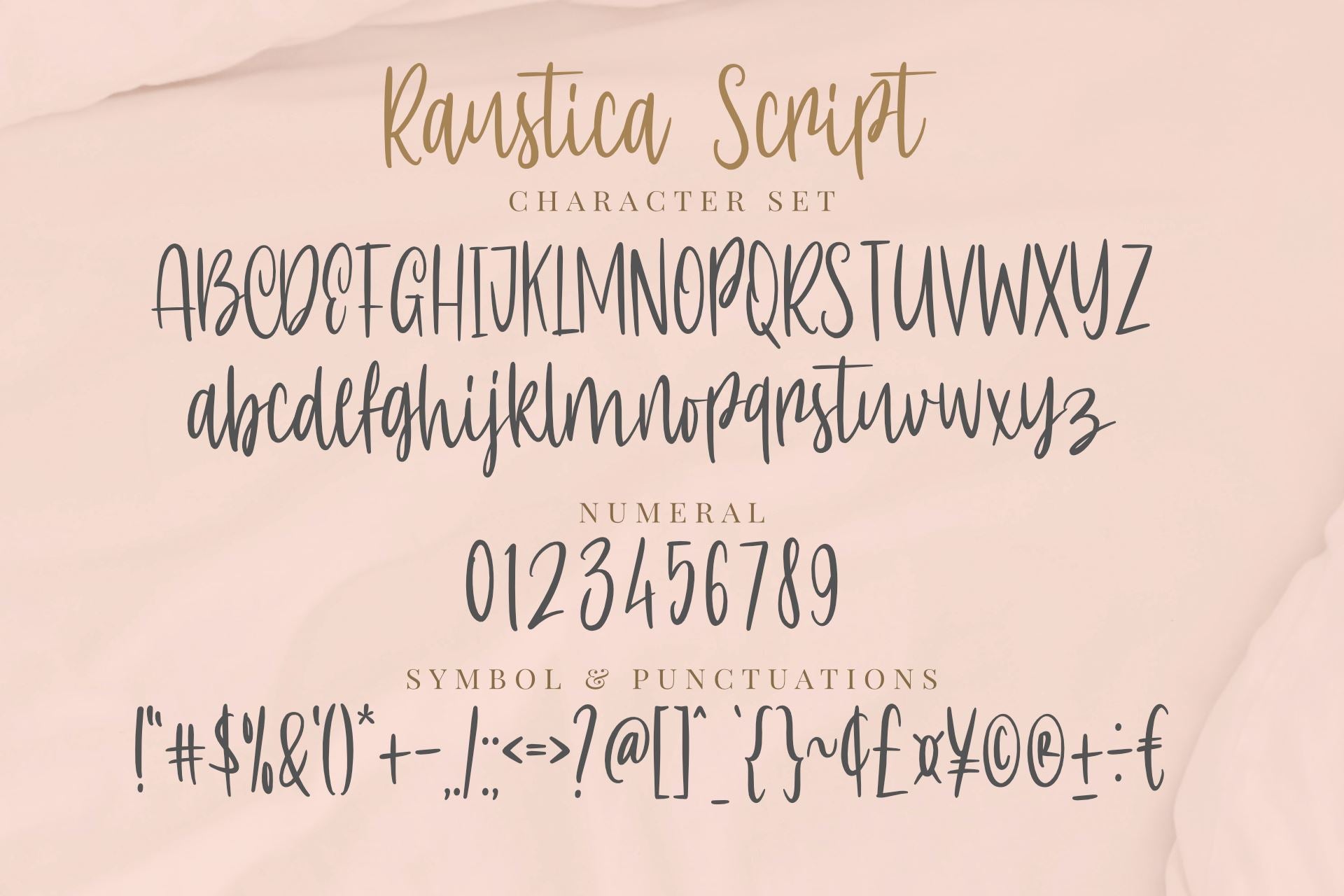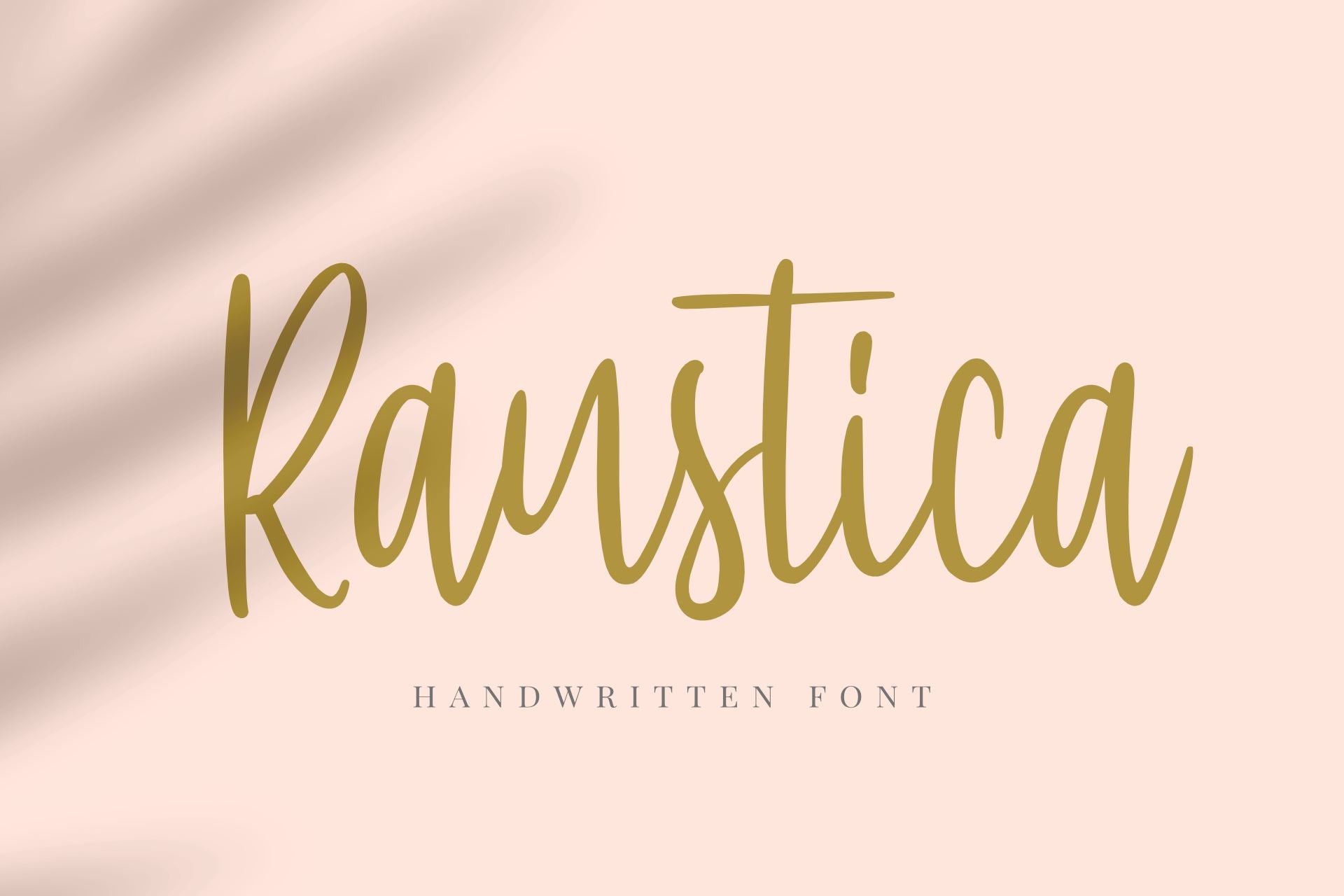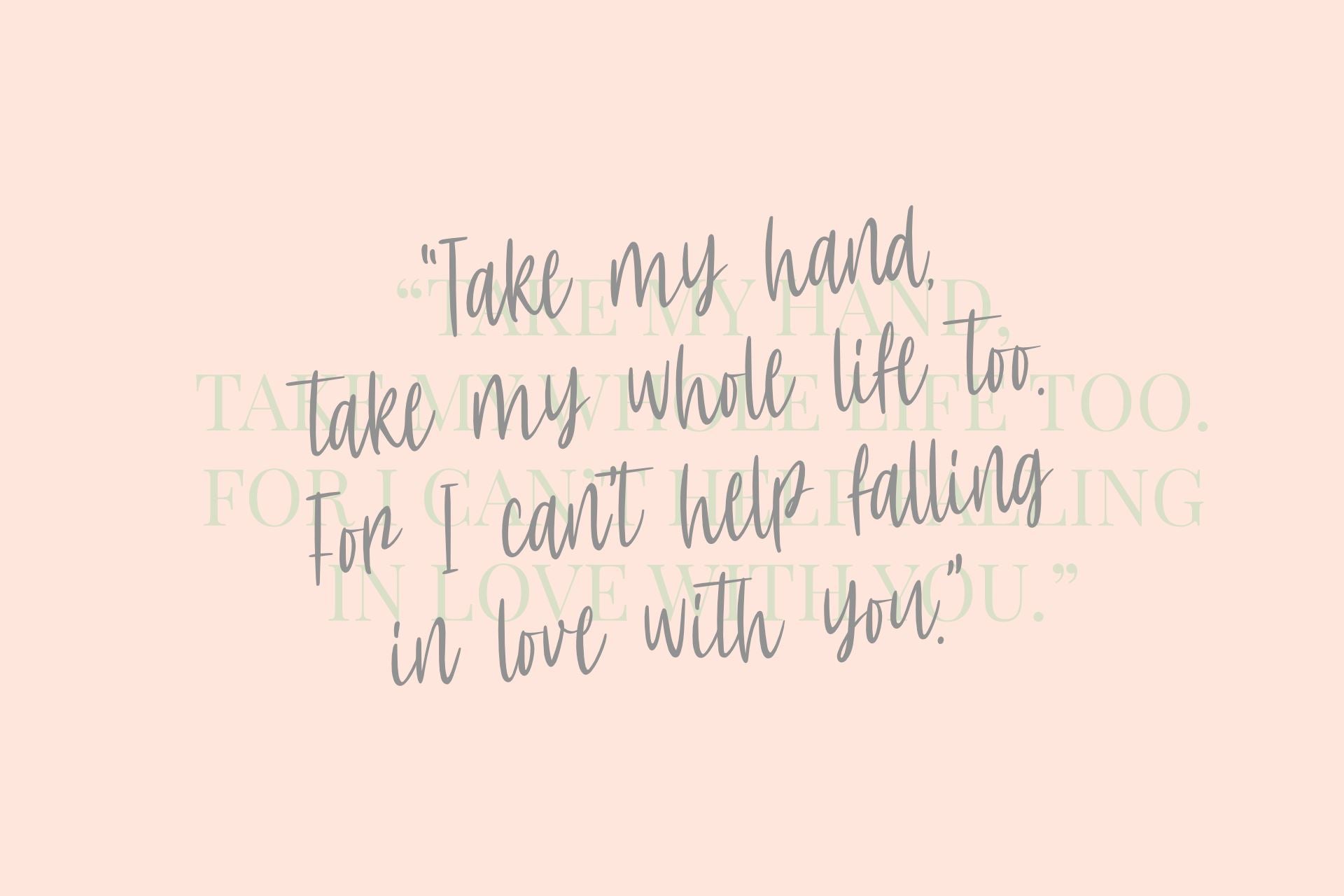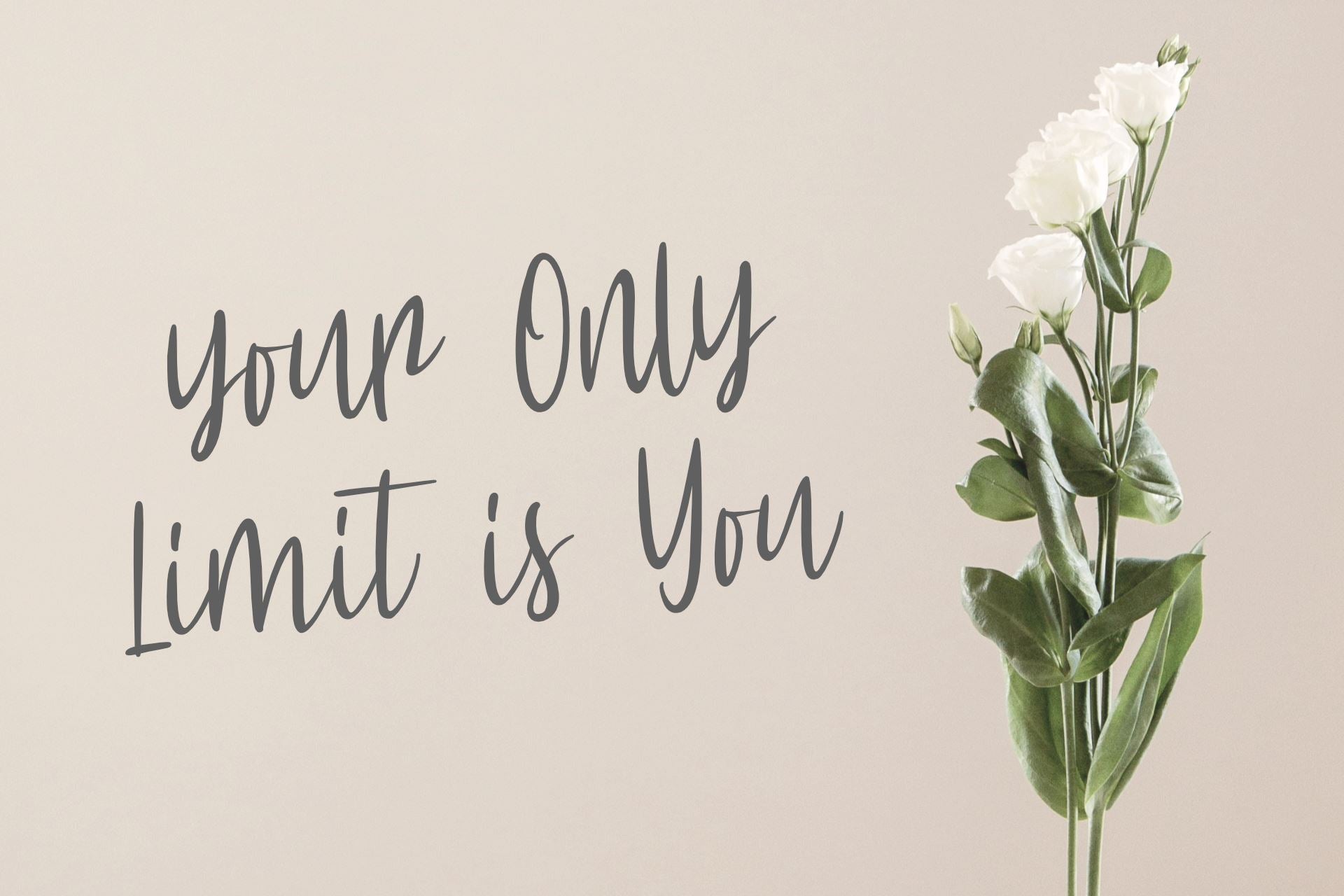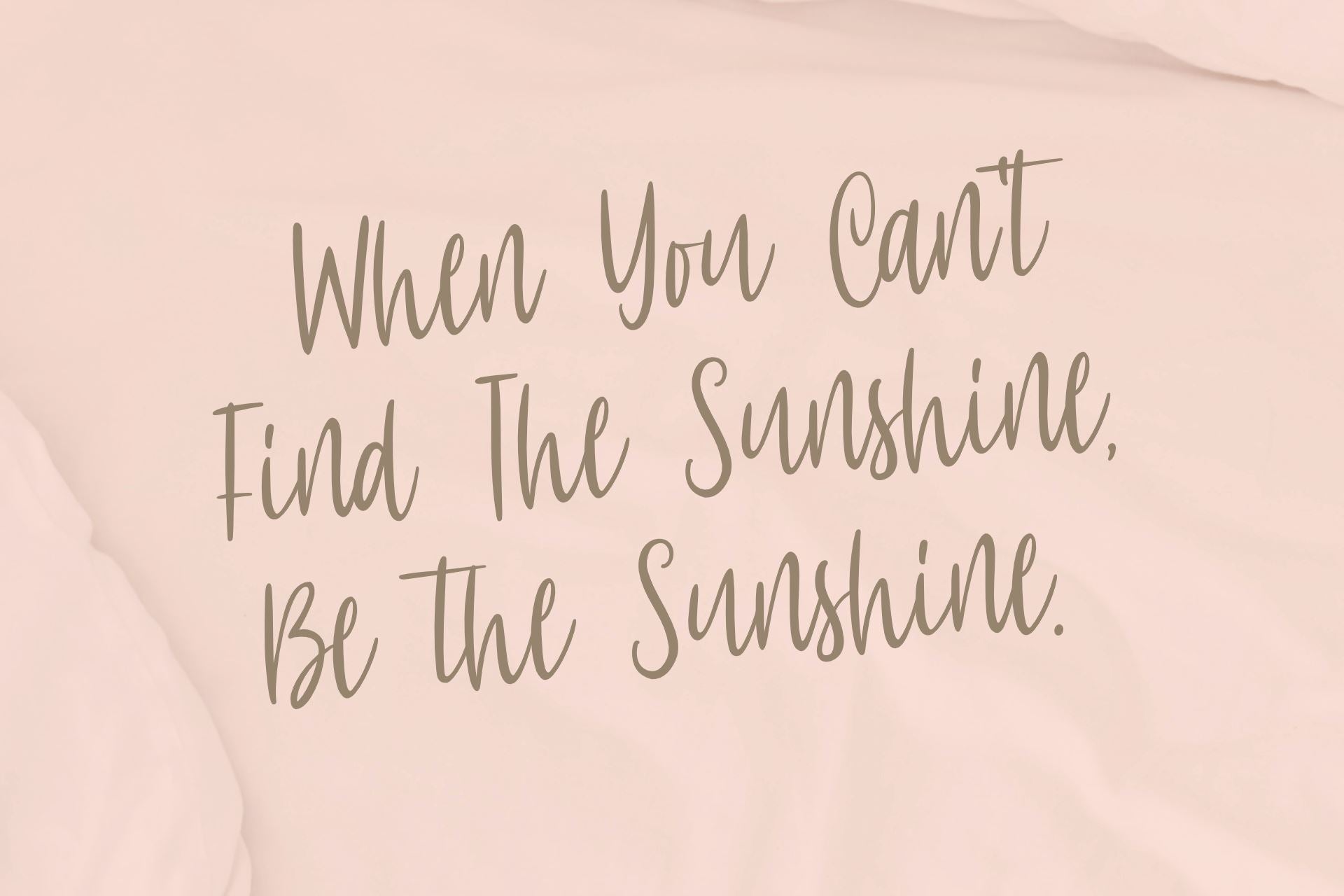
HomeScript FontsRaustica Script Fonts Raustica FacebookTwitterPinterestWhatsApp 1 of 5 ... ... ... ... ... About Raustica is a delicate and elegant handwritten font. Its distinct and well rounded letters make this font a masterpiece. Fall in love with its incredibly versatile style and use it to create spectacular designs! DOWNLOAD NOW People also explored Amoore Font Card Characters Streak Scratches Font Eleven Font Rosallyn Signature Font Dream Catcher Monogram Font The Restight Script Font Binlay Font Monogram Wreath Font 71 0 TagsRaustica Previous articleCollectionNext articleAyah LEAVE A REPLY Cancel reply Comment: Please enter your comment! Name:* Please enter your name here Email:* You have entered an incorrect email address! Please enter your email address here Website: Save my name, email, and website in this browser for the next time I comment. Personal Use Free Limejuice Personal Use Free Read more about this font Clarisa Script Personal Use Free Read more about this font Fifteenth Century Personal Use Free Read more about this font Zephan Personal Use Free Read more about this font BLOG Using Fonts in Digital Marketing: Tips to Strengthen Your Brand Identity In the realm of digital marketing, every visual element plays a crucial role in shaping a brand's identity, and fonts are no exception. The... Where to Buy American Fonts Online in 2024 Best Fonts for T-Shirt Design – Top 2025 Picks Best Fonts for YouTube Videos: Make Your Thumbnails Stand Out